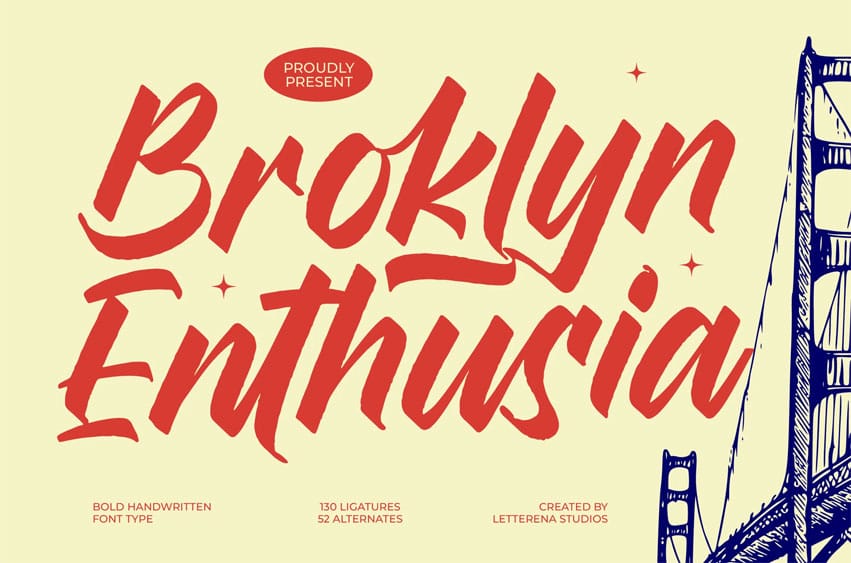
Broklyn Enthusia Font is suitable to complement your digital and printed creative products. This font is perfect for posters, social media posts, branding, personal projects, etc.